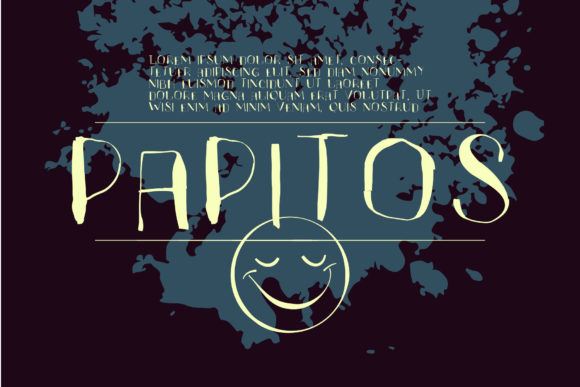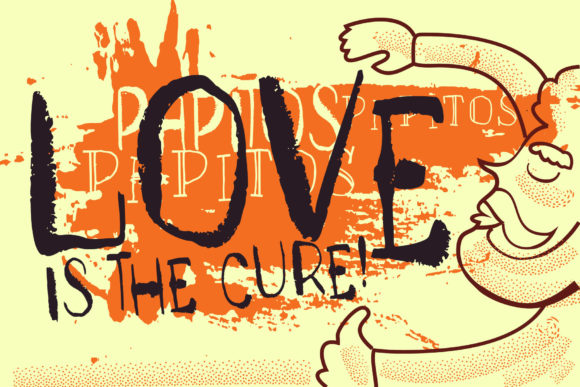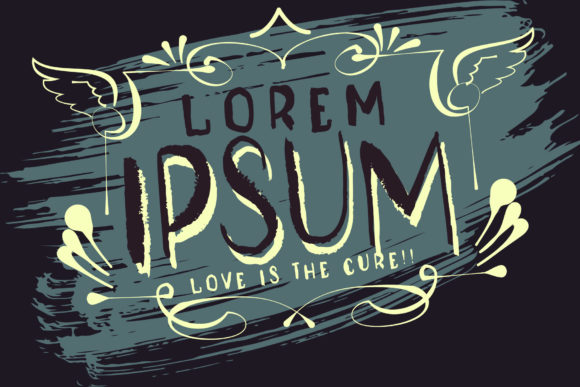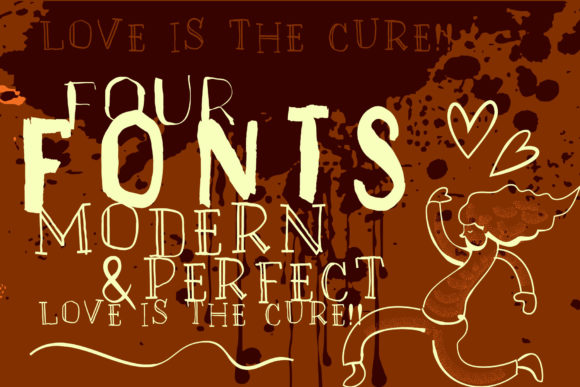
Papitos Font
About Papitos Font
Papitos is a fun handwritten font. Clean and a little bit quirky, this font is the perfect fit for all of your logos, branding, social media, and crafty DIY projects.